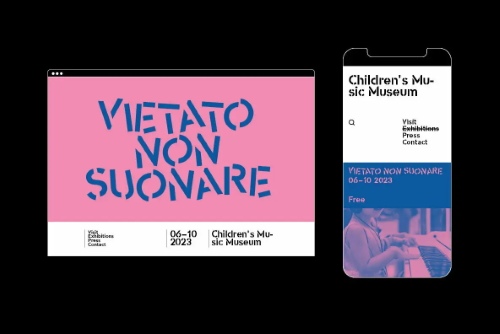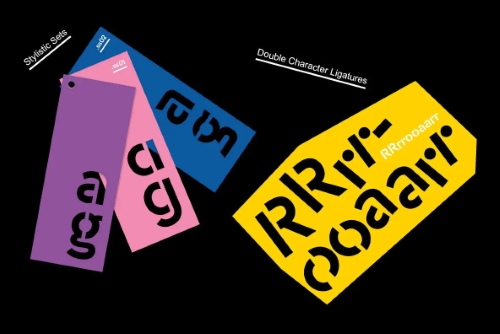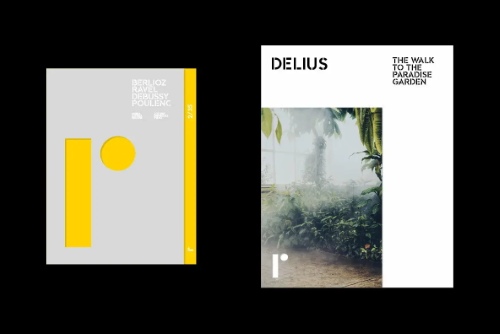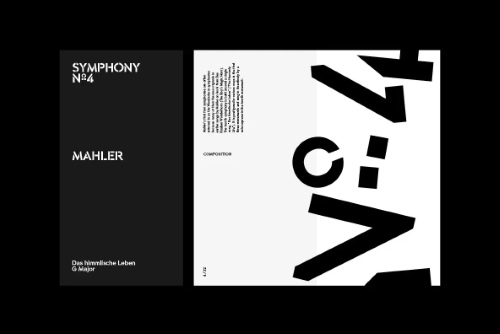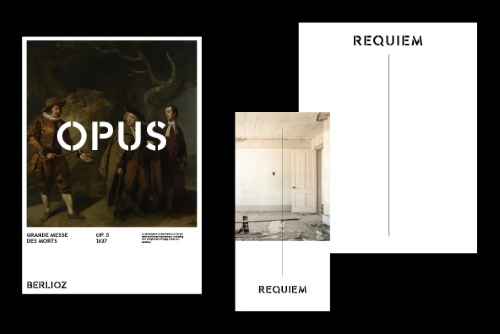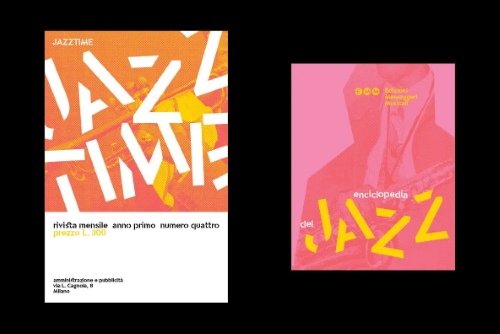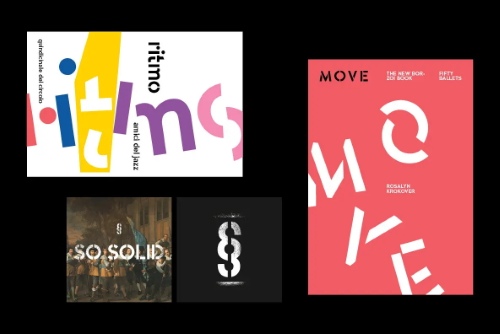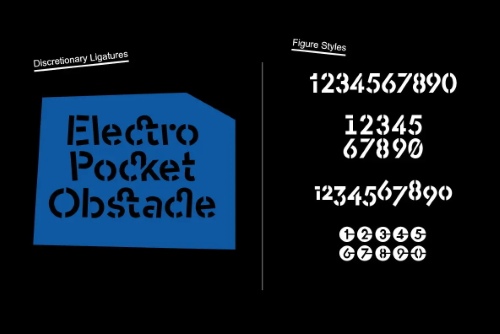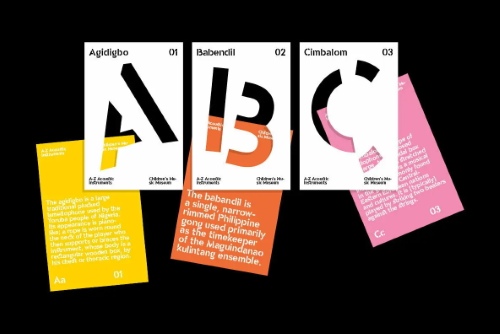
OC Format Stencil - 15 Styles + Variable
- OC Format Stencil is a variable font design inspired by the work of Bruno Munari, Paul Rand, and Max Huber. Built on -OC Format Sans Bd, it has three axes that allow it to transition seamlessly from functional cutout to a more playful, expressive, and musical design.